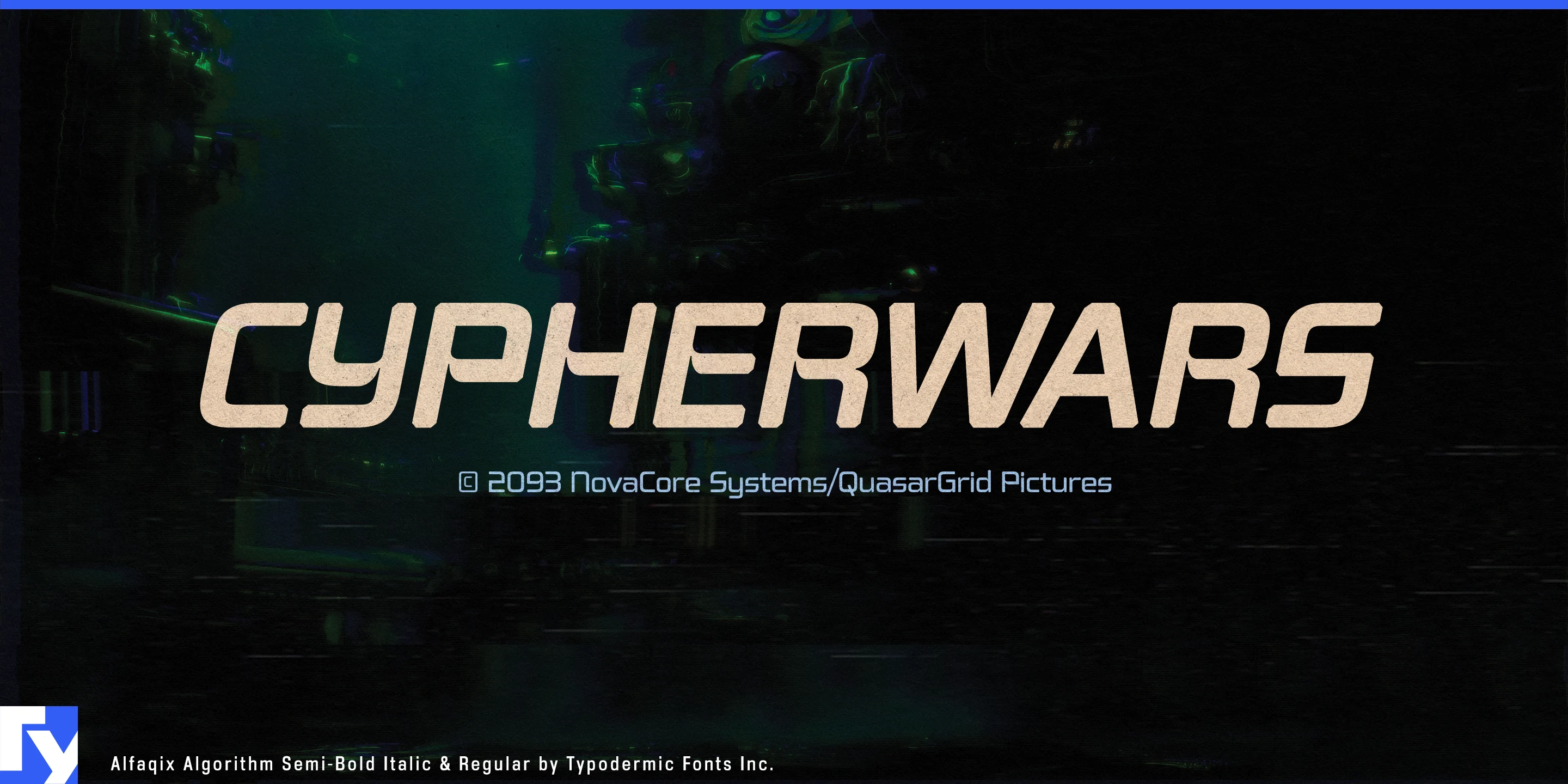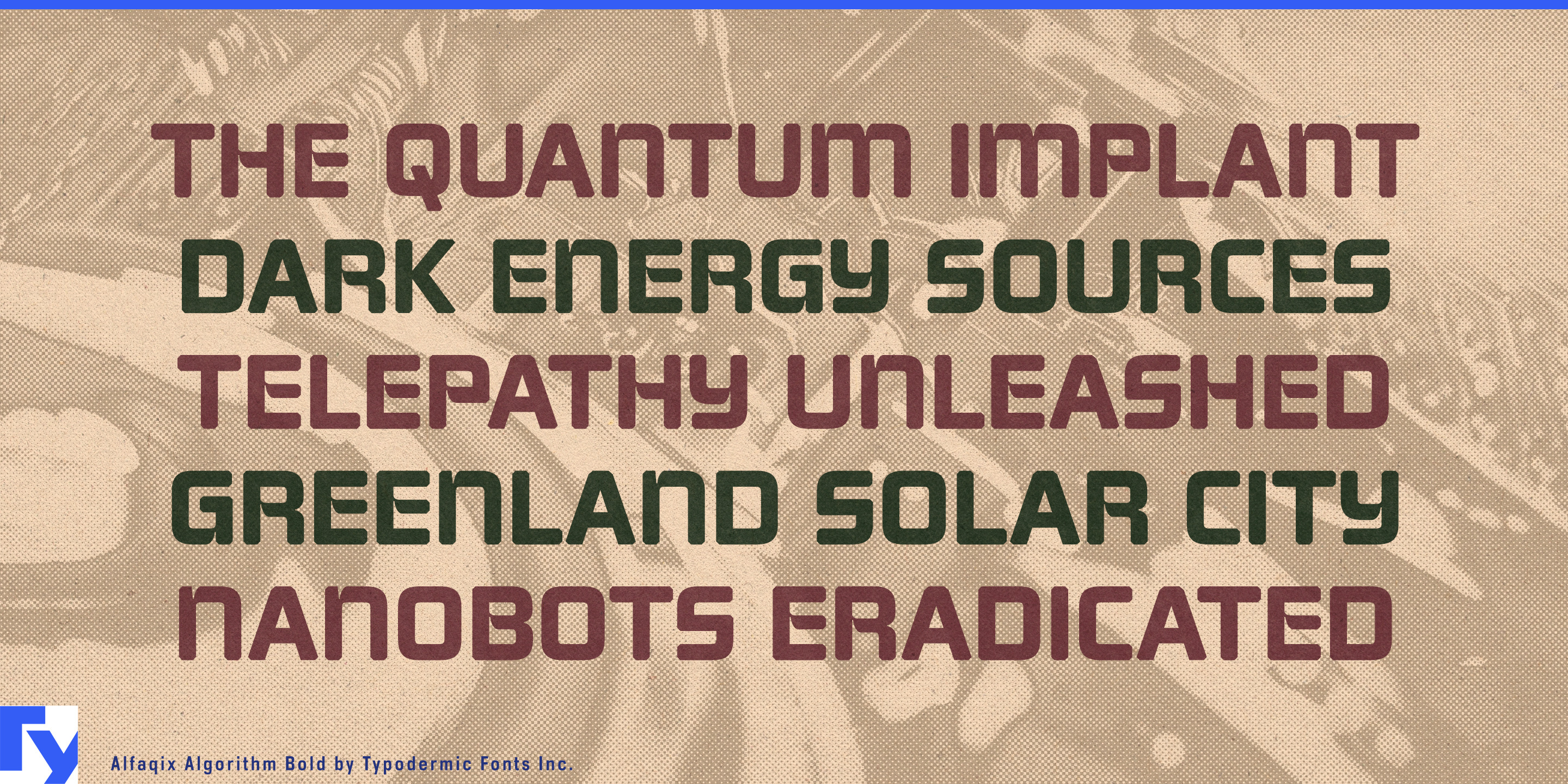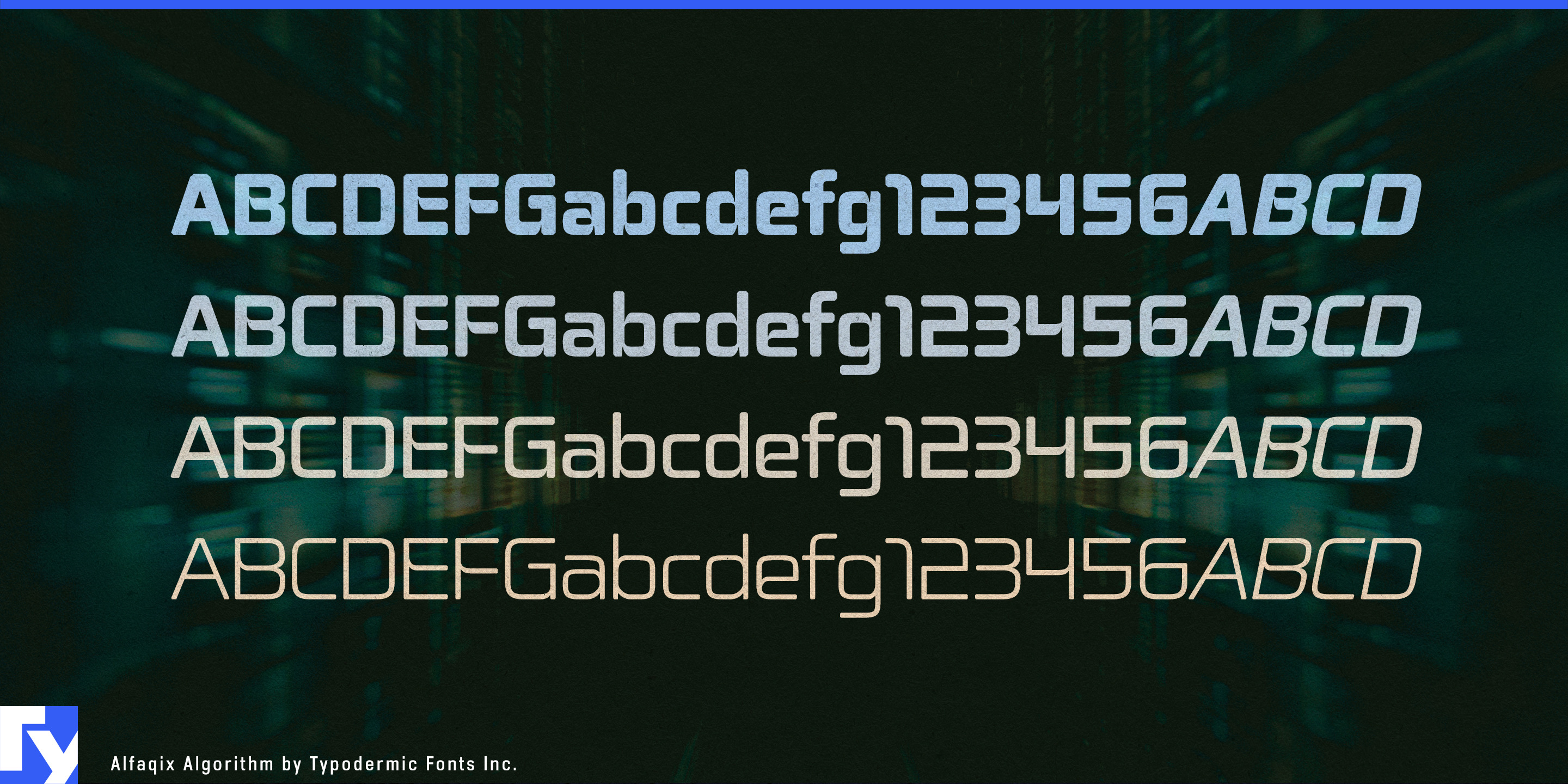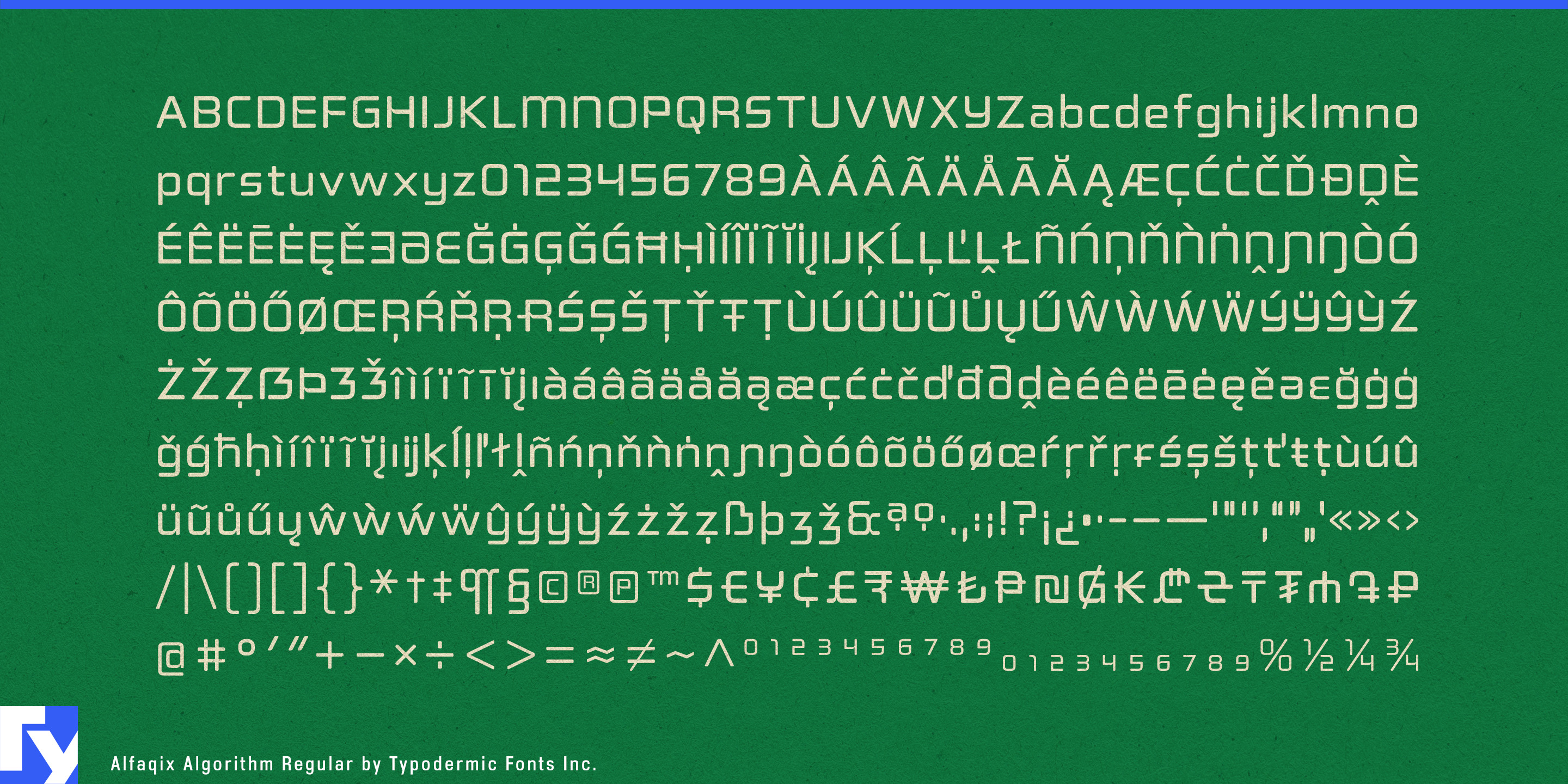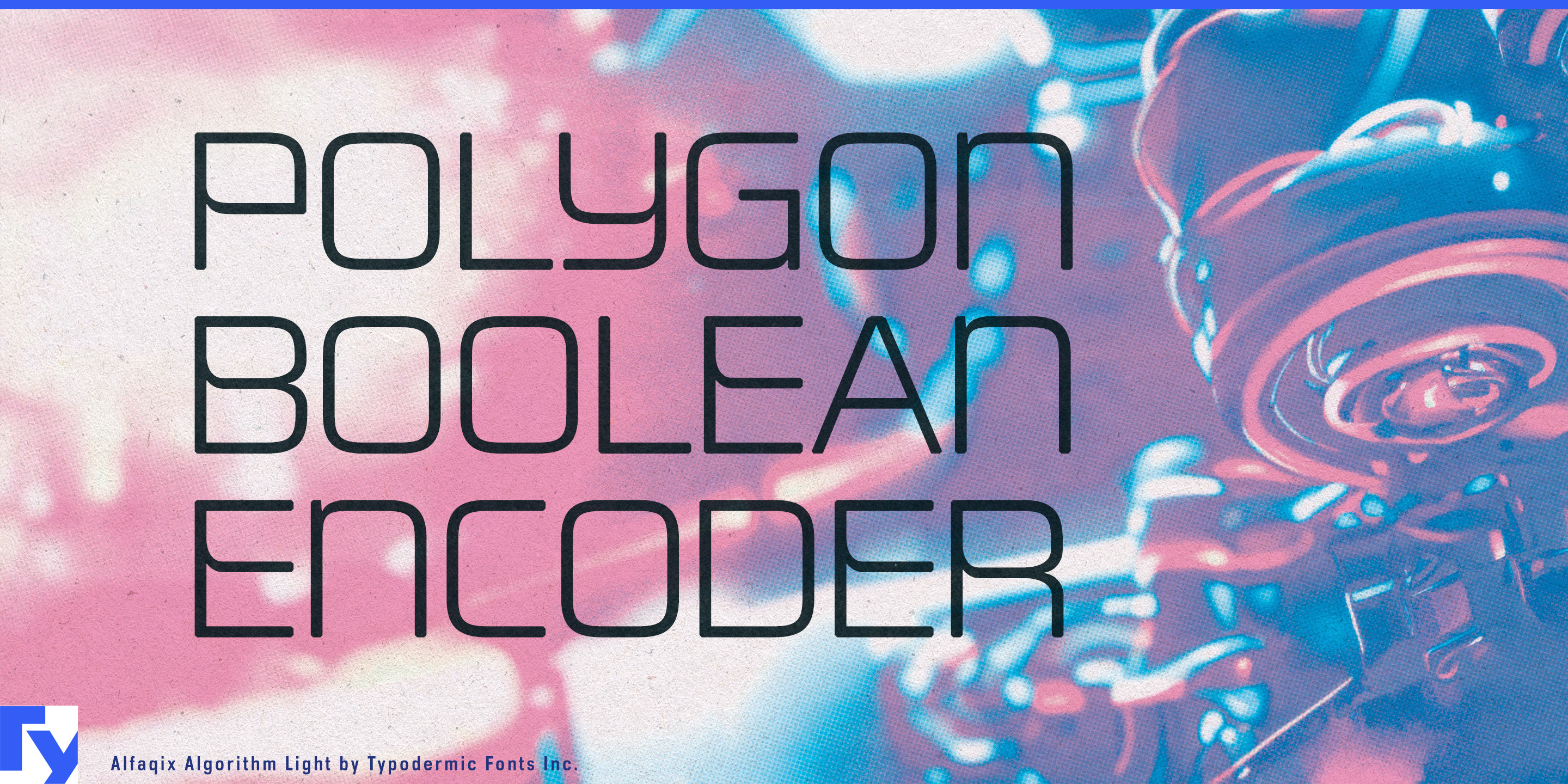
Alfaqix Algorithm
Technical products often need typography that looks engineered without looking fictional. A conventional sans can make sophisticated equipment or software feel generic; a heavily stylized techno face may establish the mood quickly but becomes awkward when the same system needs headings, labels, diagrams and short explanatory text. Alfaqix Algorithm occupies the useful territory between those extremes.
Its modular letterforms are squared and geometric, with clipped, octagonal stroke ends that give the family a machined quality without turning every character into a special effect. That makes Algorithm particularly effective for scientific and industrial instruments: laboratory analyzers, environmental sensors, diagnostic machines, measurement equipment and other devices where a product name shares space with modes, specifications and technical information. Bold and SemiBold can identify the machine or system, while lighter weights carry the same visual language into supporting material.
Energy and infrastructure technology present a similar opportunity. Battery-storage systems, solar inverters, EV charging equipment, smart-grid software and building-control systems all combine physical hardware with screens, diagrams and data. Algorithm can move naturally from an equipment model name or enclosure graphic to dashboard headings, status categories and technical diagrams.
The same restraint suits medical technology, biotech and research environments. Diagnostic equipment, laboratory automation, genomic research software and pharmaceutical R&D systems can use Algorithm for product-family names, instrument markings, conference graphics, software headings and data displays without drifting into decorative science fiction.
For network monitoring, cybersecurity and other information-heavy systems, Algorithm works especially well as the distinctive layer in a hierarchy. It can handle section headings, machine names, telemetry labels and incident-report titles while a conventional text face takes care of dense tables and continuous reading.
Part of the Alfaqix modular family, Algorithm is distinguished by its chamfered terminals and unusually practical balance between technical character and usability. Its four weights with matching italics give laboratory instruments, energy platforms, industrial technology and technical interfaces a consistent visual system that looks engineered rather than merely typeset.